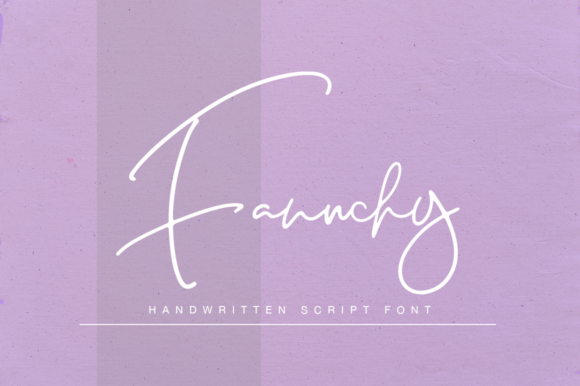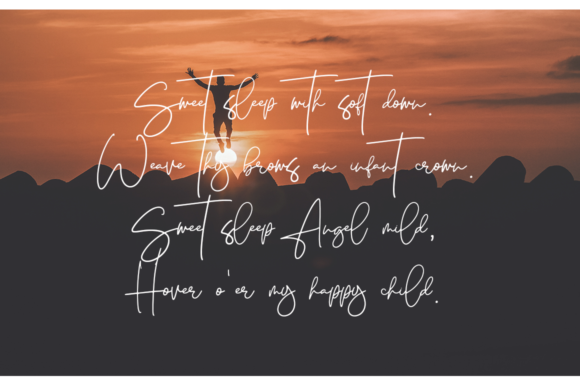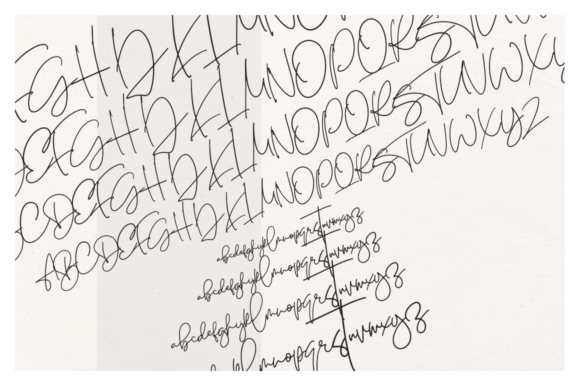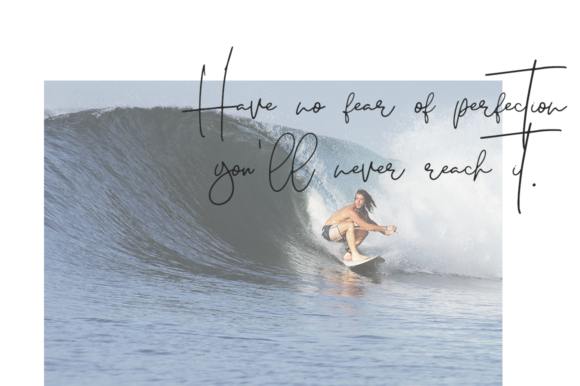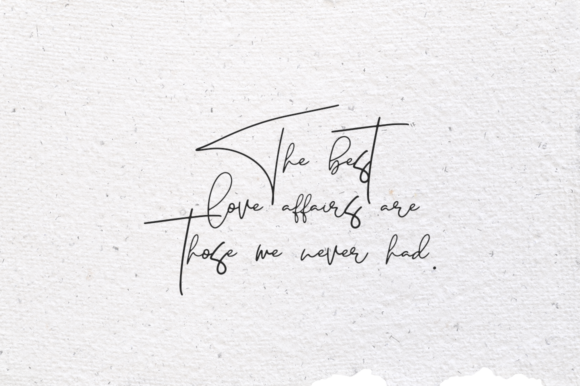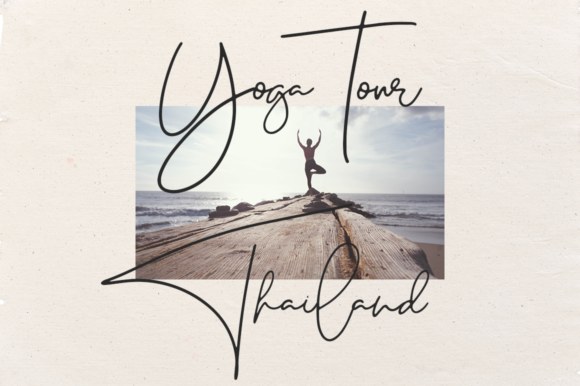
Fanuchy Font
About Fanuchy Font
The Fanuchy is a fresh, handmade calligraphy font. It has a natural handwritten style which can be used for branding materials, greeting cards, business cards, quotes, posters, and much more!